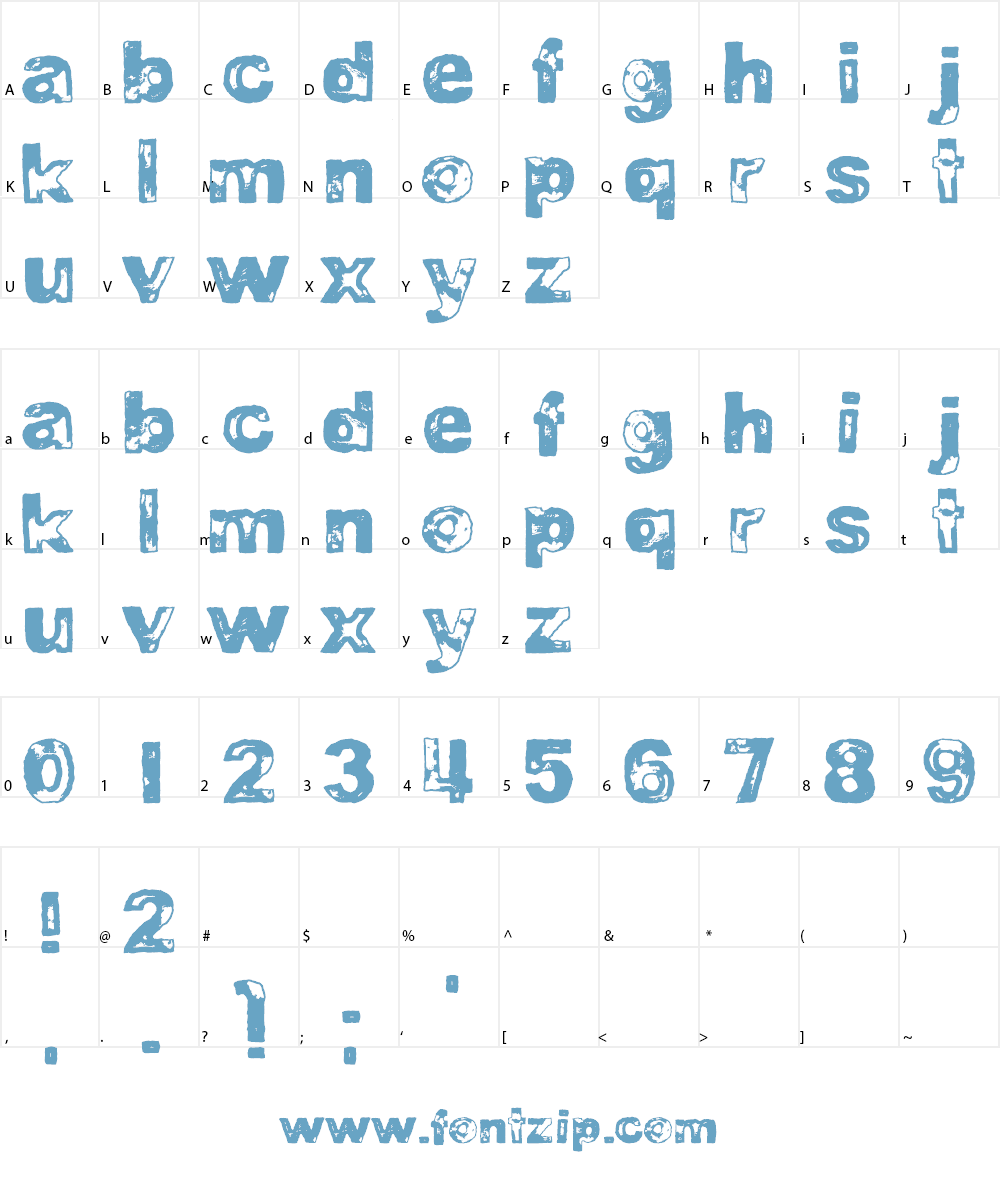
This two-fer font set is a design based on a bad rubber stamped job. It is free for personal use. Please purchase a commercial use license here: http://darcybaldwin.com/